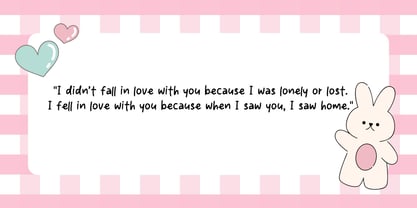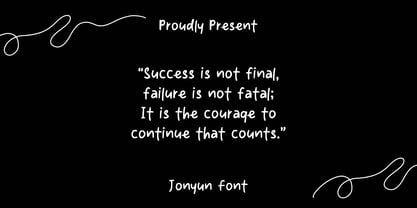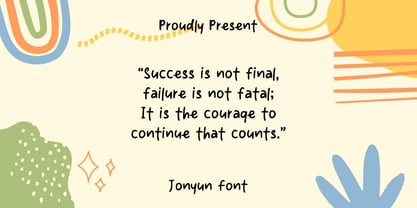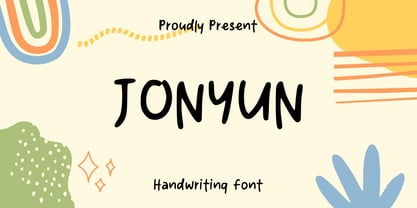
Jonyun
La familia tipográfica Jonyun fue diseñada por y publicada por Sidkia Fonts. Jonyun contiene 1 estilos.
Jonyun is a fun and friendly handwritten font that brings a personal, playful feel to your designs. With its slightly quirky curves and casual vibe, this font is perfect for inspirational quotes, greeting cards, social media posts, stickers, and more!
Designed to look like natural handwriting, Jonyun adds warmth and authenticity wherever it’s used. Whether you’re aiming for cute, cozy, or uplifting, this font fits right in.